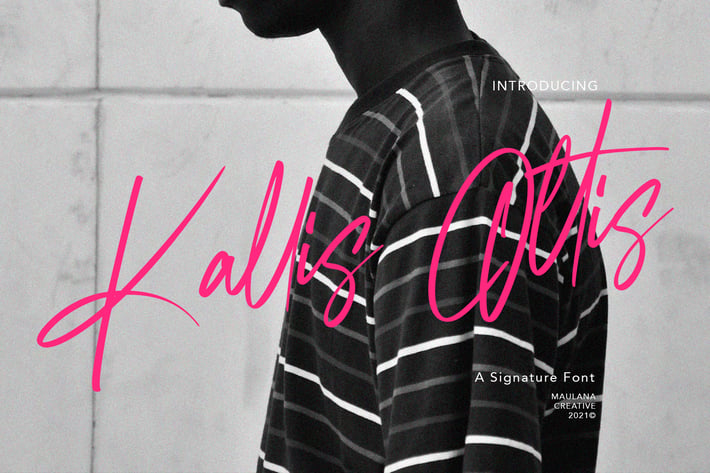
Kallis Ottis Signature Font
Kallis Ottis is a fancy signature font With clean high contrast stroke, super slanted and fun character. It has Opentype features of ligatures, To give you an extra creative work. Kallis Ottis script script font support multilingual more than 100+ language. This font is good for logo design, Social media, Movie Titles, Books Titles, a short text even a long text letter and good for your secondary text font with sans or serif. Make a stunning work with Kallis Ottis signature font.